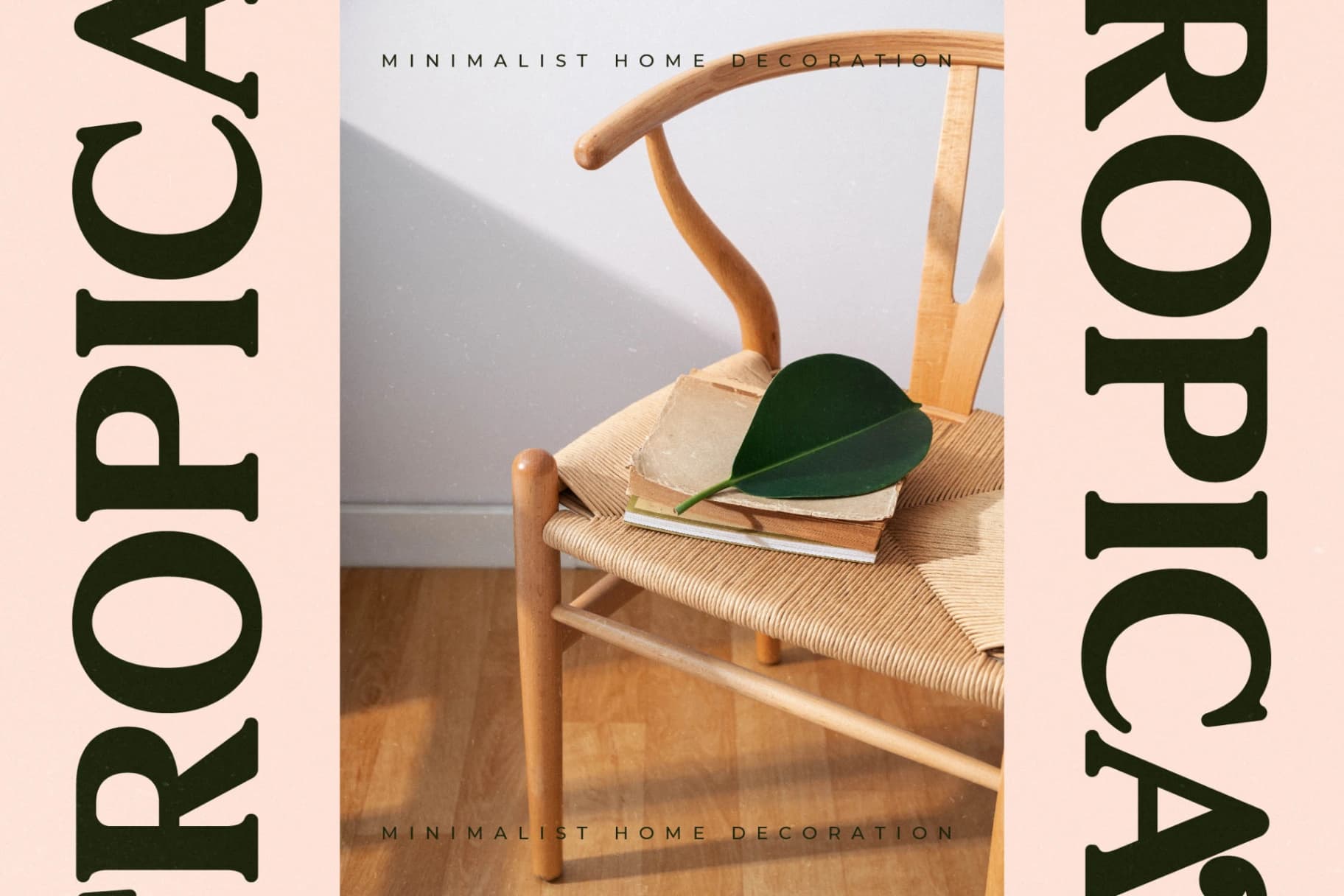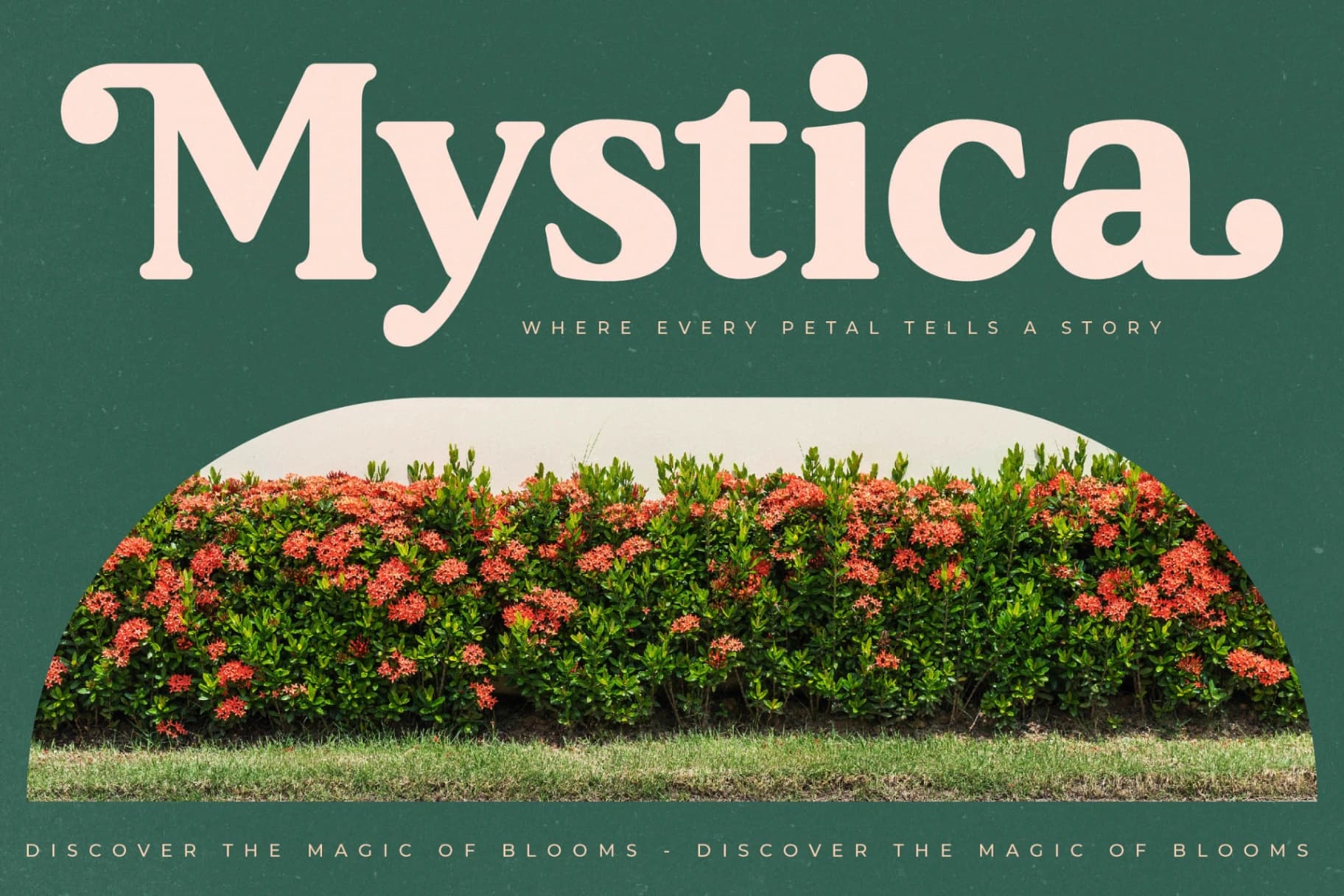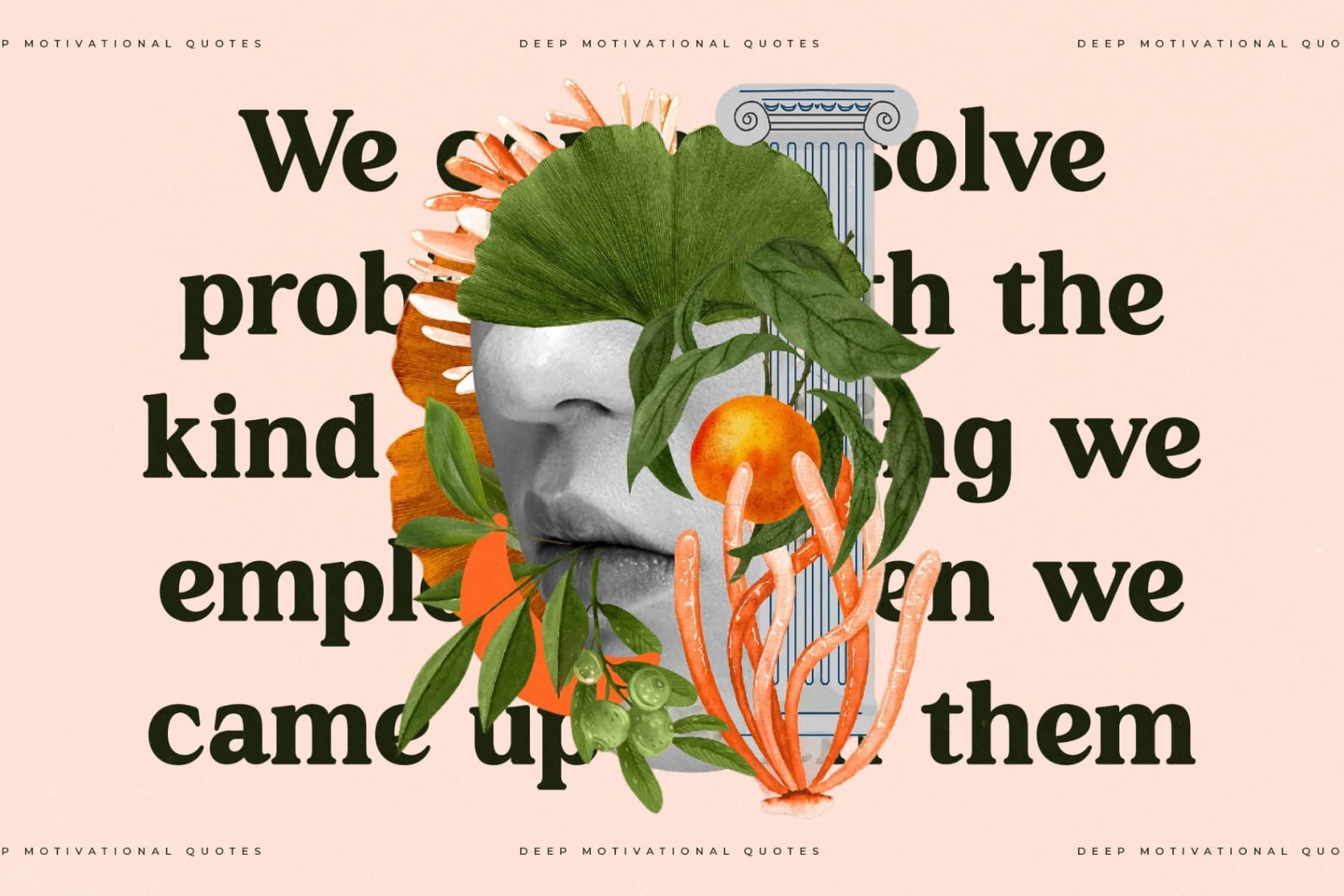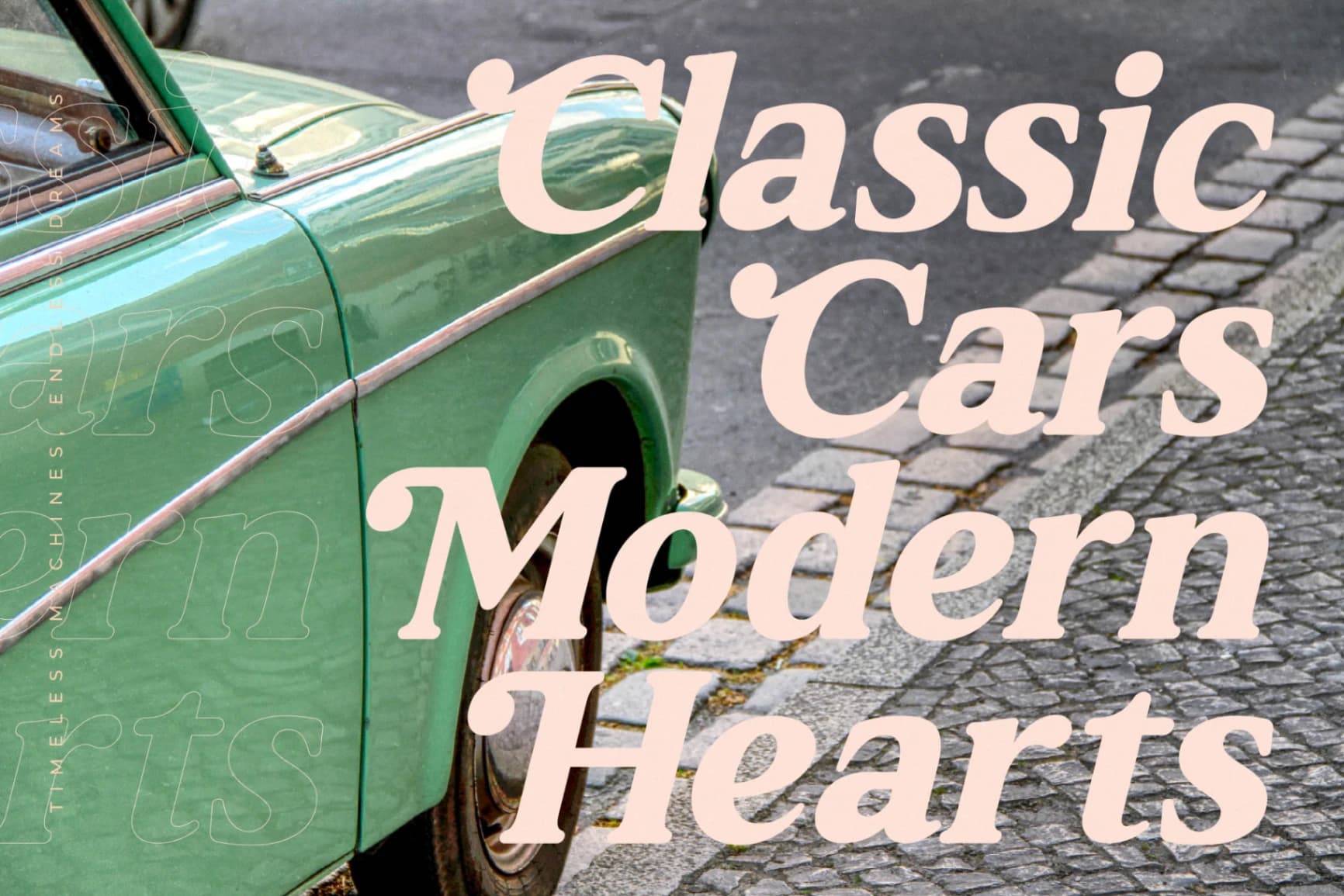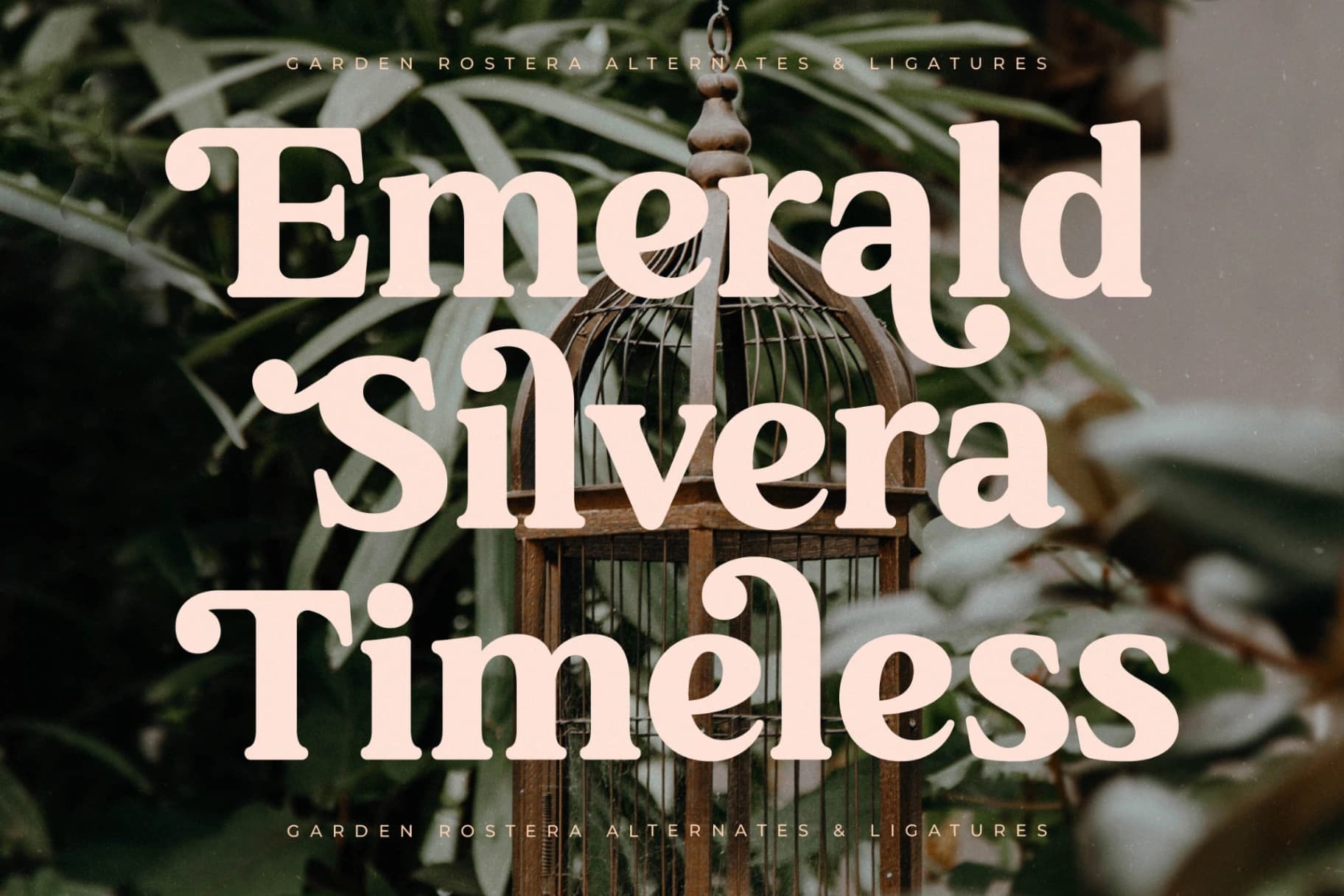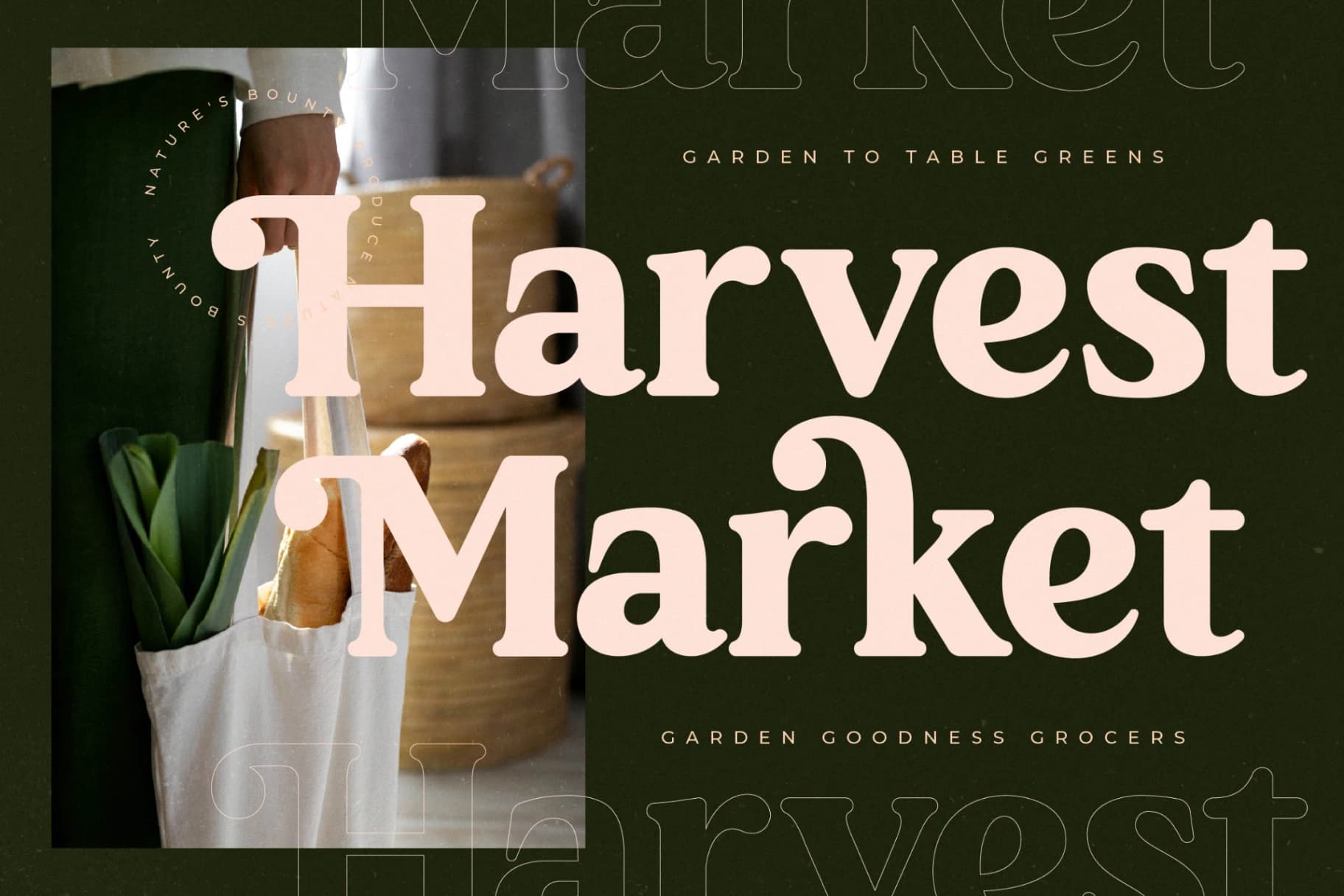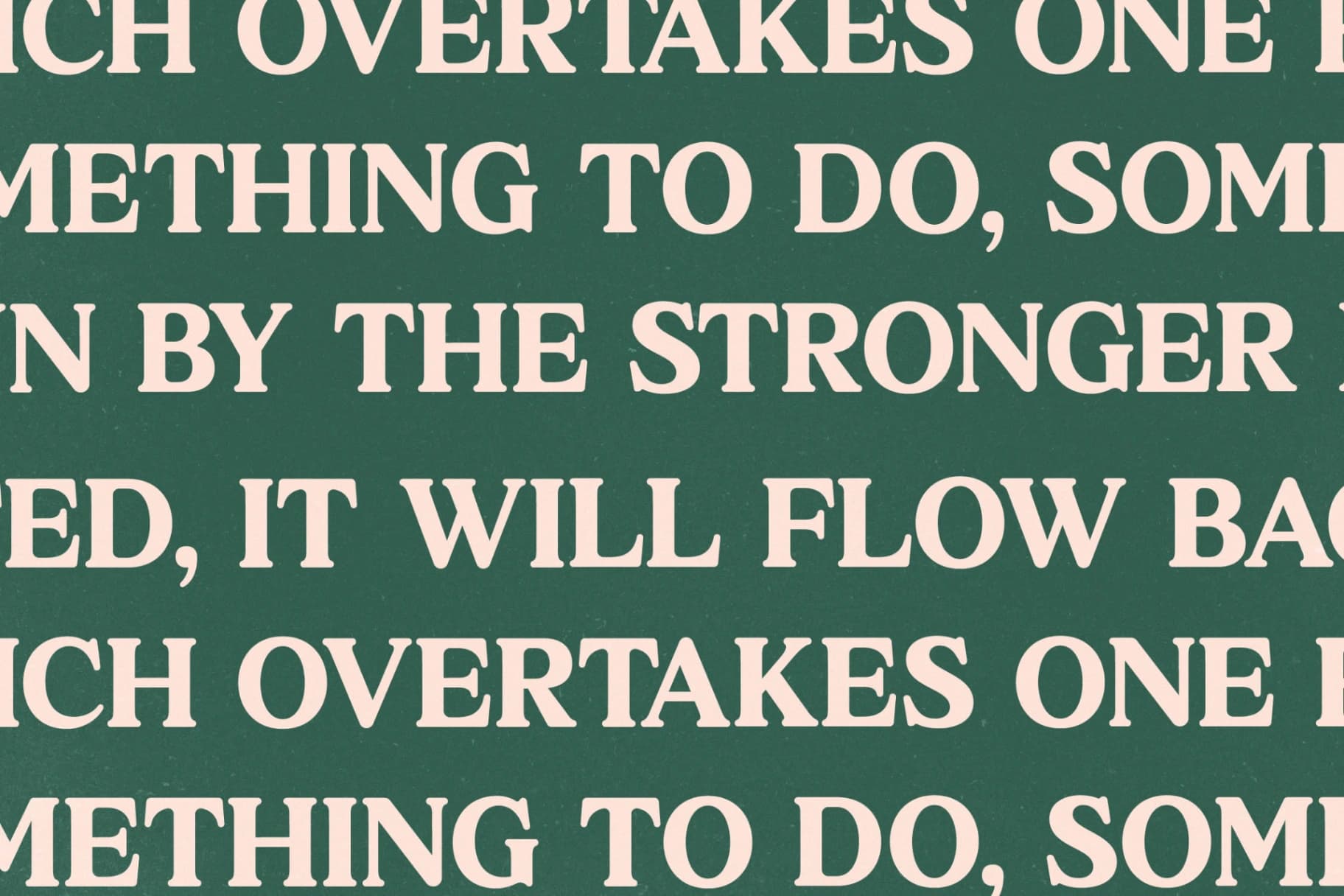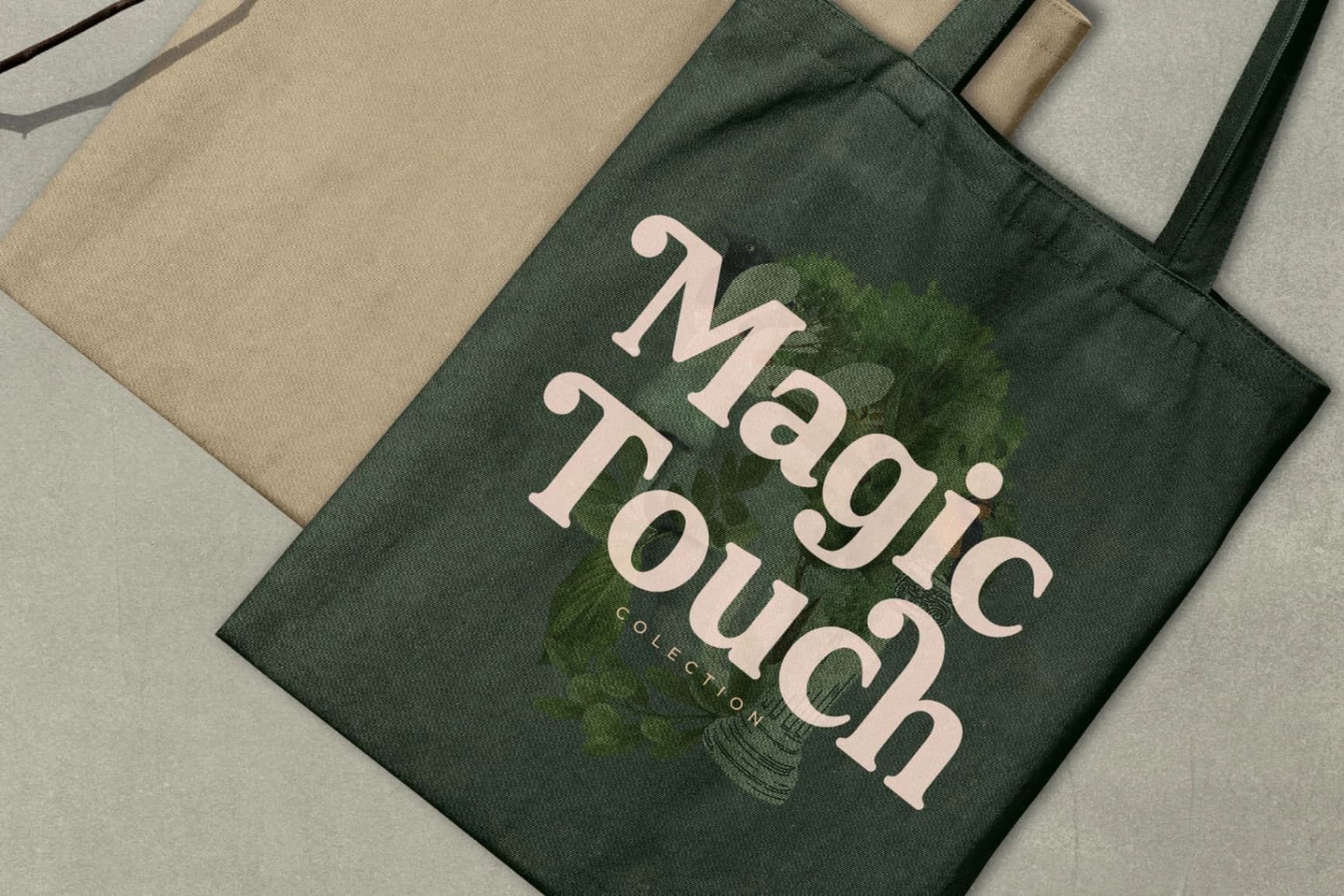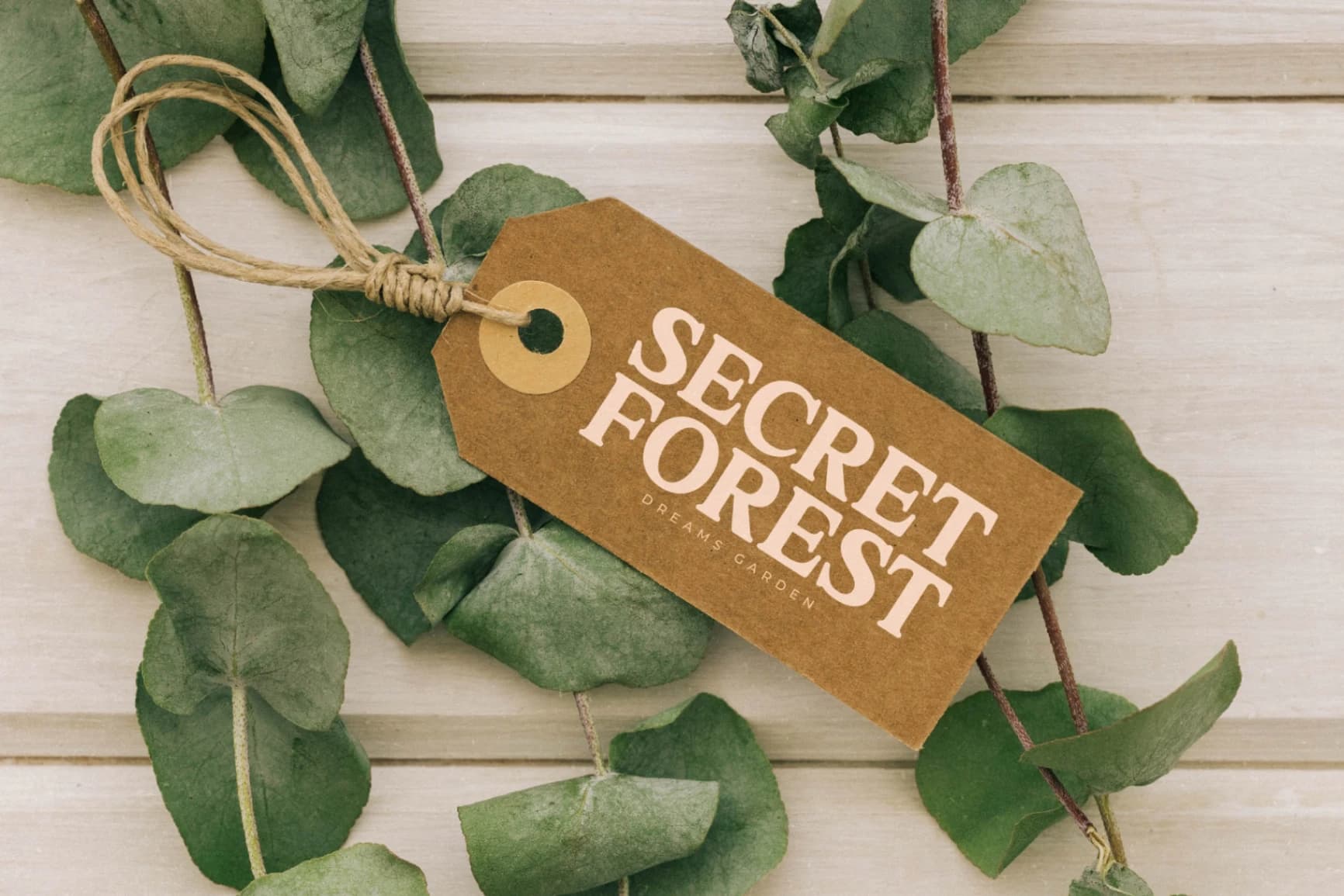
Garden Rostera - Modern Vintage Serif
Elevate your design projects with timeless elegance and modern flair. Introducing Garden Rostera - Modern Vintage Serif, a stunning display typeface that expertly fuses the ornamental grace of classic typography with a sleek, contemporary aesthetic. Its letterforms feature bold contrast, deep curves, and distinctive decorative serifs that command attention, ensuring every heading or logo design resonates with sophistication. This font provides immediate visual impact, making it an essential tool for designers seeking luxurious and memorable typography that stands out in the market.
Unleash unparalleled creative customization using rich OpenType features. Garden Rostera - Modern Vintage Serif comes equipped with dozens of highly expressive alternates, unique ligatures, and stylistic sets, transforming simple titles into bespoke typographic illustrations. These extended features offer designers the flexibility to tailor the text's mood, from playfully ornate to cleanly authoritative, ensuring your brand visuals feel distinctive and tailored. This level of typographic control guarantees superior results for high-end client work and editorial layouts.
Ensure your brand message transcends borders effortlessly. With its extensive multilingual support, Garden Rostera - Modern Vintage Serif adapts seamlessly across global markets, making it incredibly versatile for international projects. This comprehensive language coverage means that premium quality typography is maintained whether you are designing content for North America, Europe, or beyond, solidifying its place as a globally competent design asset in your library.
Perfectly suited for amplifying aspirational and luxury brands. Garden Rostera - Modern Vintage Serif is the definitive choice for projects demanding refinement and presence. It is ideal for high-end packaging design, prestigious editorial covers, exclusive wedding invitations, and impactful luxury branding. Utilizing the robust and elegant structure of Garden Rostera - Modern Vintage Serif ensures your product narrative is communicated with authentic vintage charm and undeniable modern appeal across all marketing collateral.